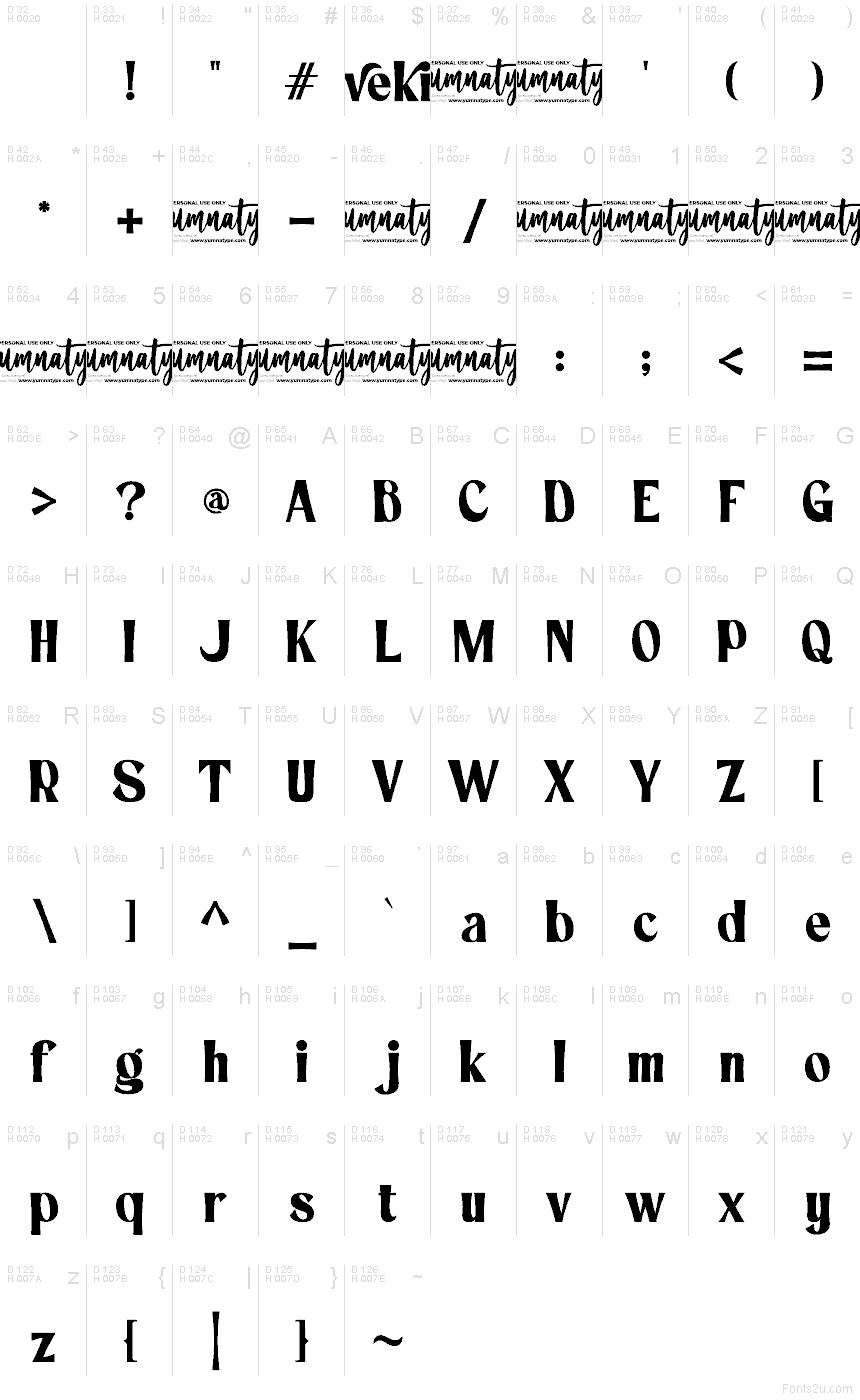
Lovekiss Personal Use
Lovekiss font by Yumna Family is a free serif font that leans into plush curves and bold, sculpted wedges. Its thick, inky strokes and carved serifs create a striking rhythm—soft where it swells, crisp where it cuts—giving headlines a lush, romantic weight without getting fussy. Letters nestle closely, so words feel compact and confident, with a pleasing, almost velvety texture on the page.
Using Lovekiss, your message lands with warmth and intent—great for wedding invitations, boutique logos, beauty packaging, Valentine promos, book covers, and bold posters. This free font shines when set large with a touch of extra tracking, then paired with a clean geometric sans for body copy to let the curves do the talking.